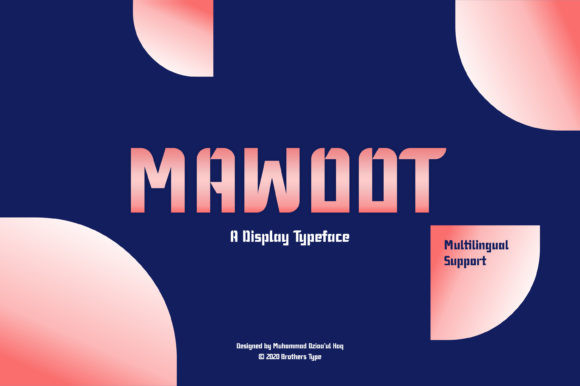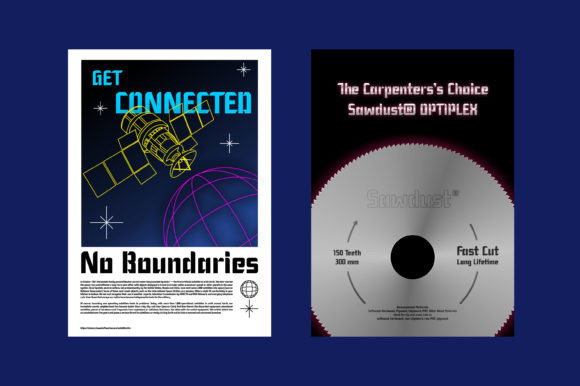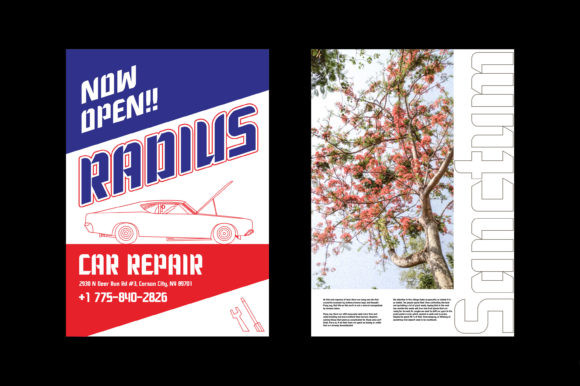
Mawoot Font
Mawoot is a geometric display font. This design has a strong technological feel and modern playful shapes, it will suit any project you can think of.